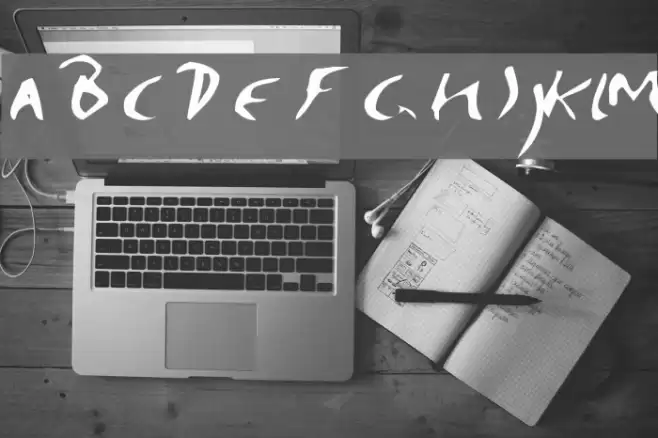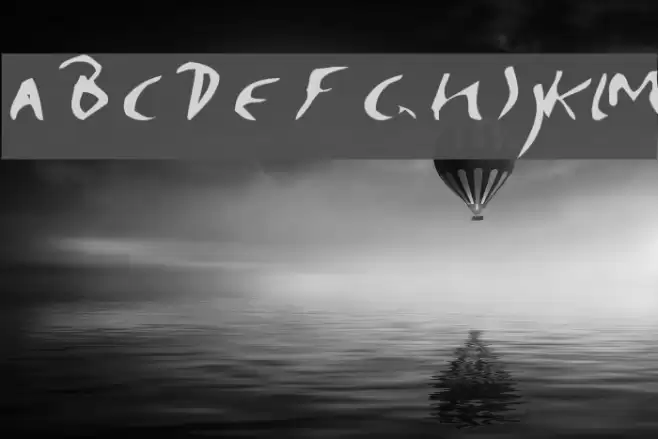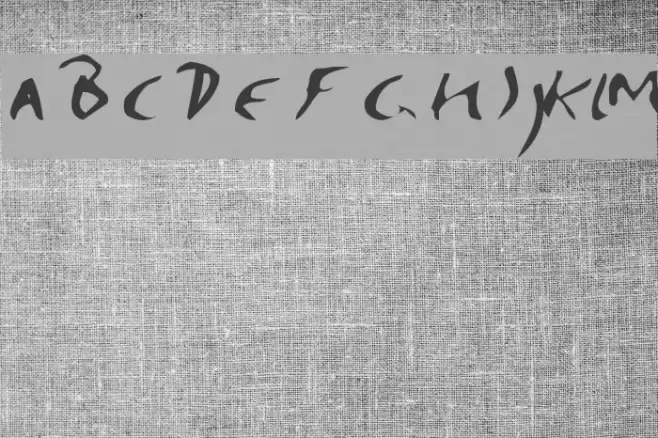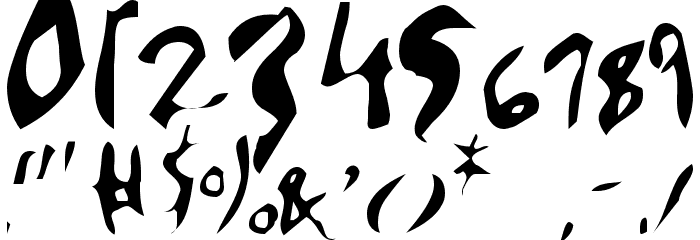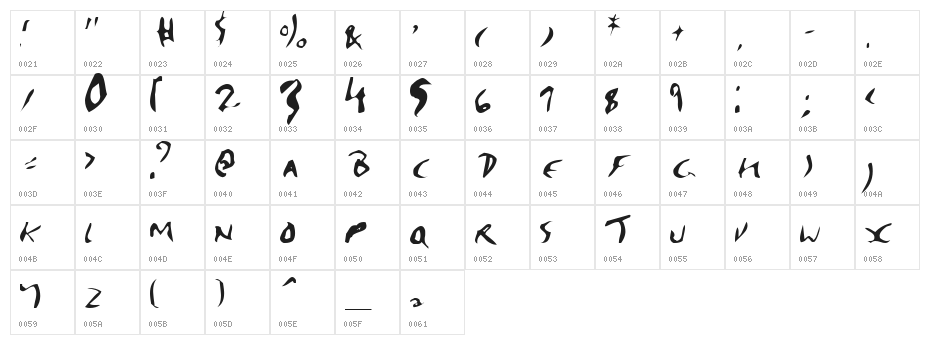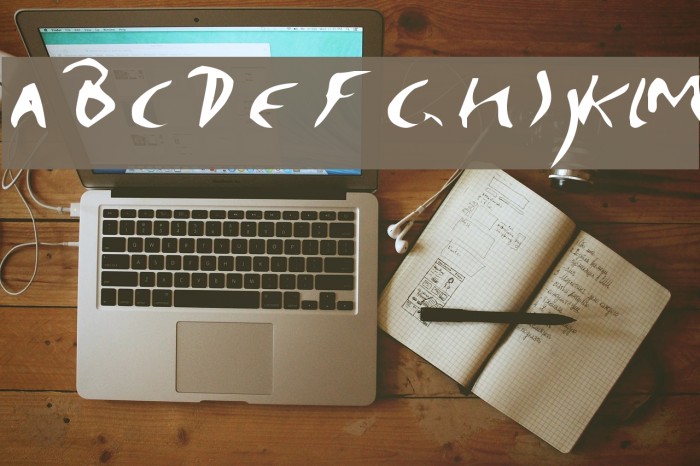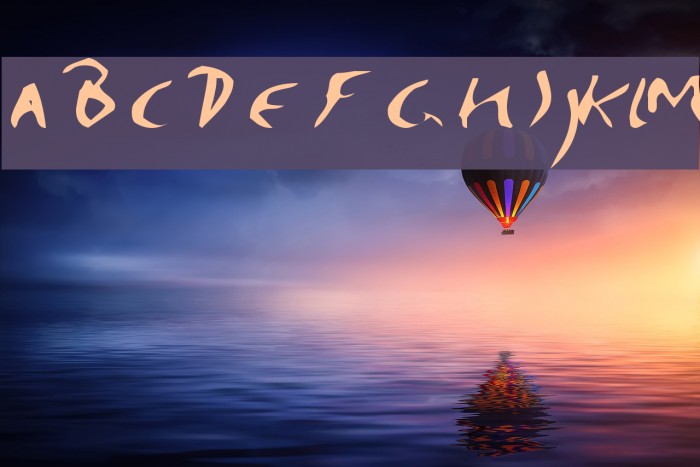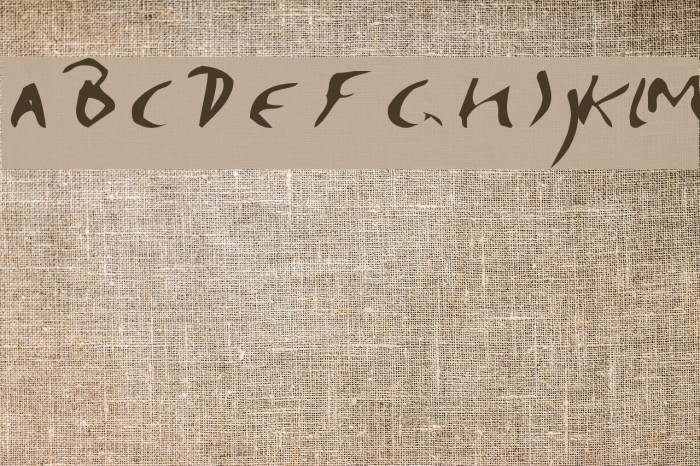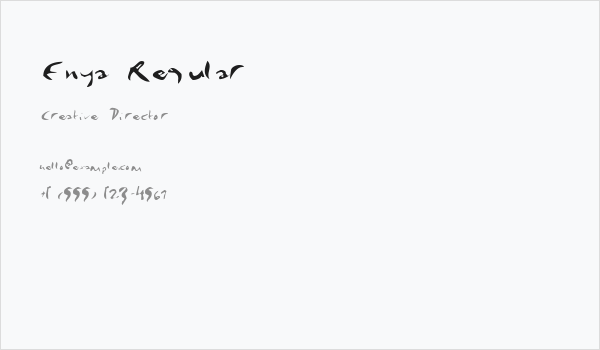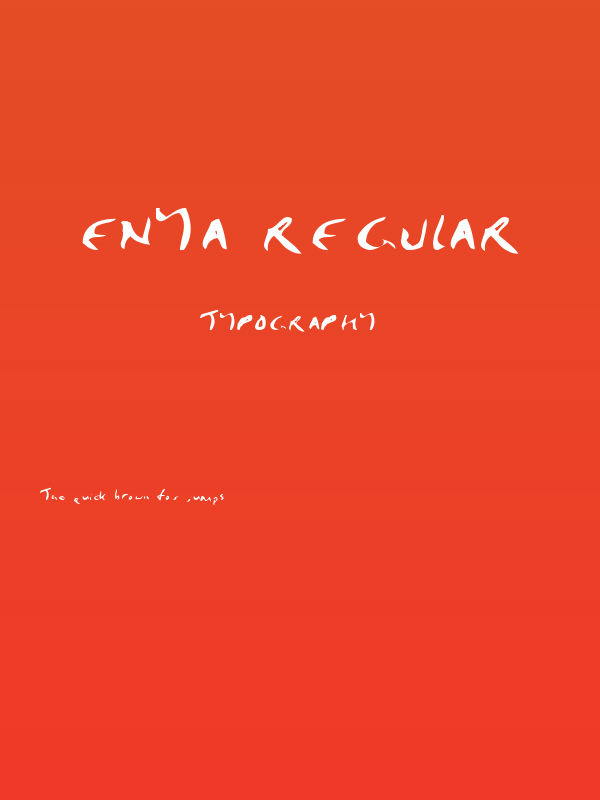
Enya Regular Font
Enya Regular Description
This font features a dynamic and expressive style, characterized by its bold and fluid strokes. The letters exhibit a handwritten quality, with varying thickness that adds a sense of movement and energy. The uppercase and lowercase letters maintain a consistent flow, while the numerals and special characters integrate seamlessly into the overall design. The font's artistic flair makes it suitable for creative and informal applications, where a touch of personality is desired.
A bold, expressive handwritten font with dynamic strokes from Script fonts.
- Proposed Projects: Ideal for artistic projects, branding, invitations, and posters where a personal touch is needed.